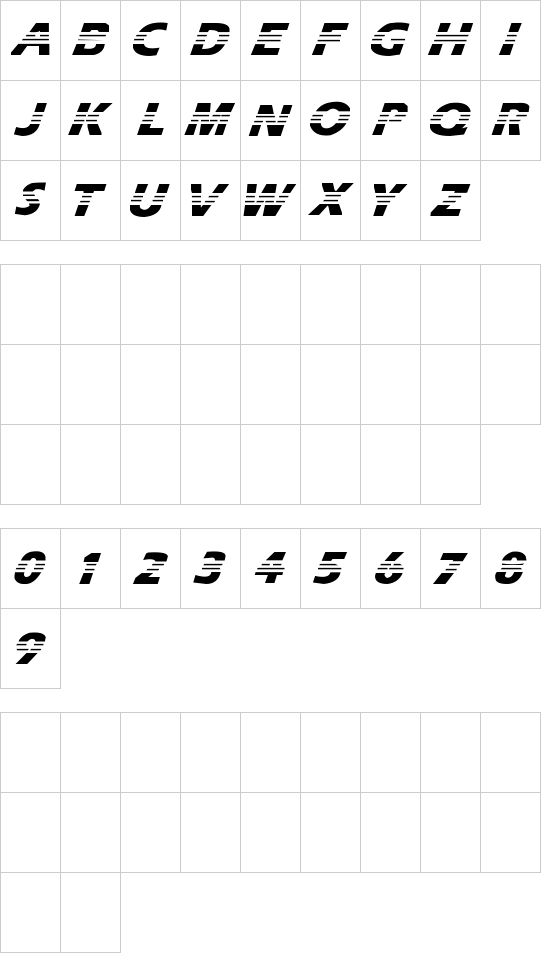
adidas sport is a bold display face with strong, sporty strokes inspired by recognizable athletic lettering. The forms are clean and muscular, with confident weight and a fast-moving feel built right into the shapes, the kind of type you would expect printed across a team kit or splashed along the sideline of a stadium.